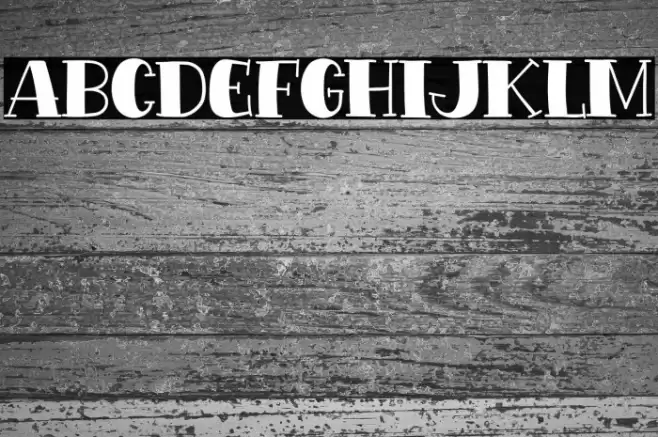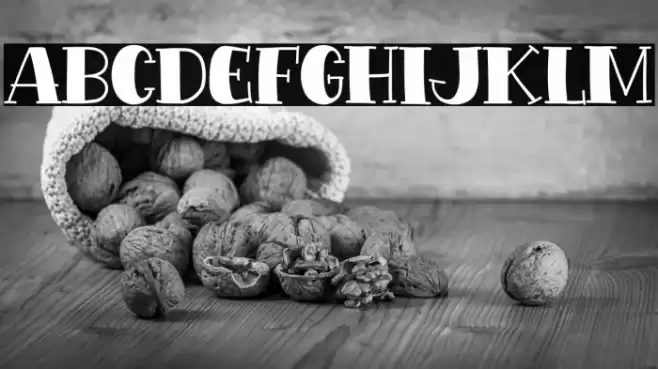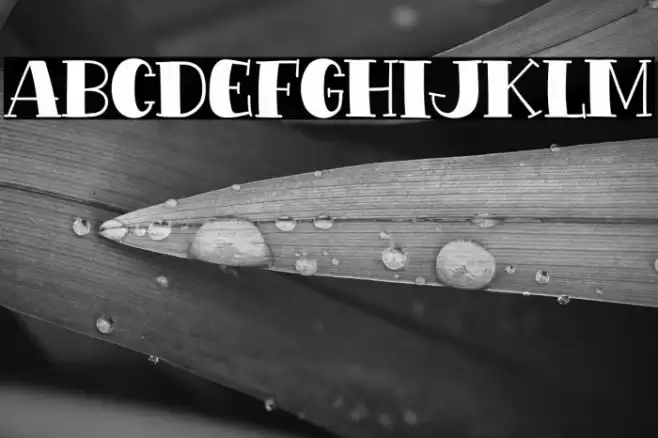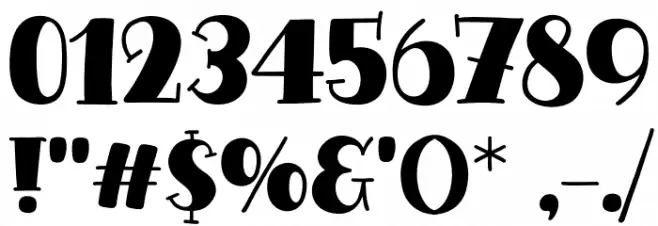
Extra Snack Font
Extra Snack Description
This font features a playful and whimsical style, characterized by its bold and exaggerated serifs. The letters have a unique, slightly irregular shape that adds a sense of fun and creativity. The uppercase and lowercase letters maintain a consistent design, with the uppercase being more pronounced. Numbers and special characters follow the same playful aesthetic, making them highly suitable for eye-catching designs. The font's boldness and distinct character make it ideal for projects that require a strong visual impact.
A playful, bold serif font with exaggerated serifs and a whimsical style from Uncategorized fonts.
- Font: Extra Snack
- Proposed Projects: Ideal for children's books, playful branding, posters, and creative invitations.
- Overall Style: Playful, Whimsical
Extra Snack UPPERCASE
Extra Snack LOWERCASE
Extra Snack OTHER CHARS